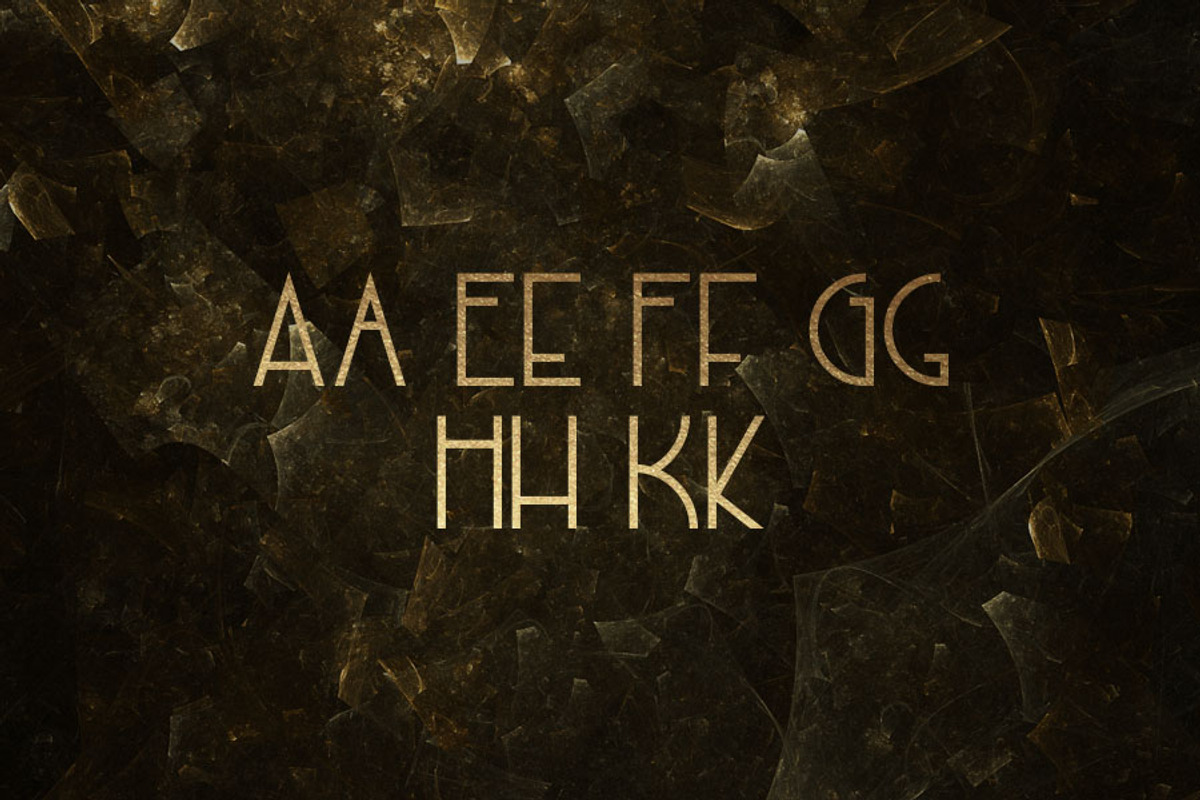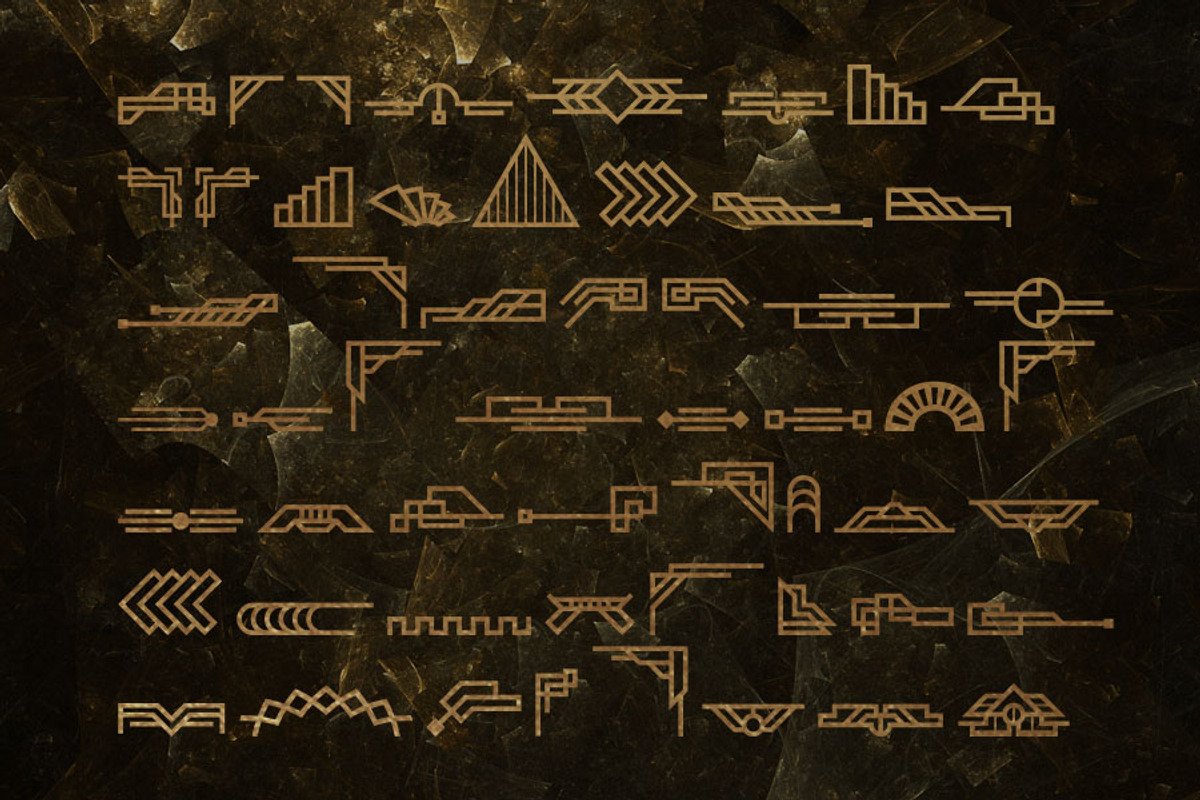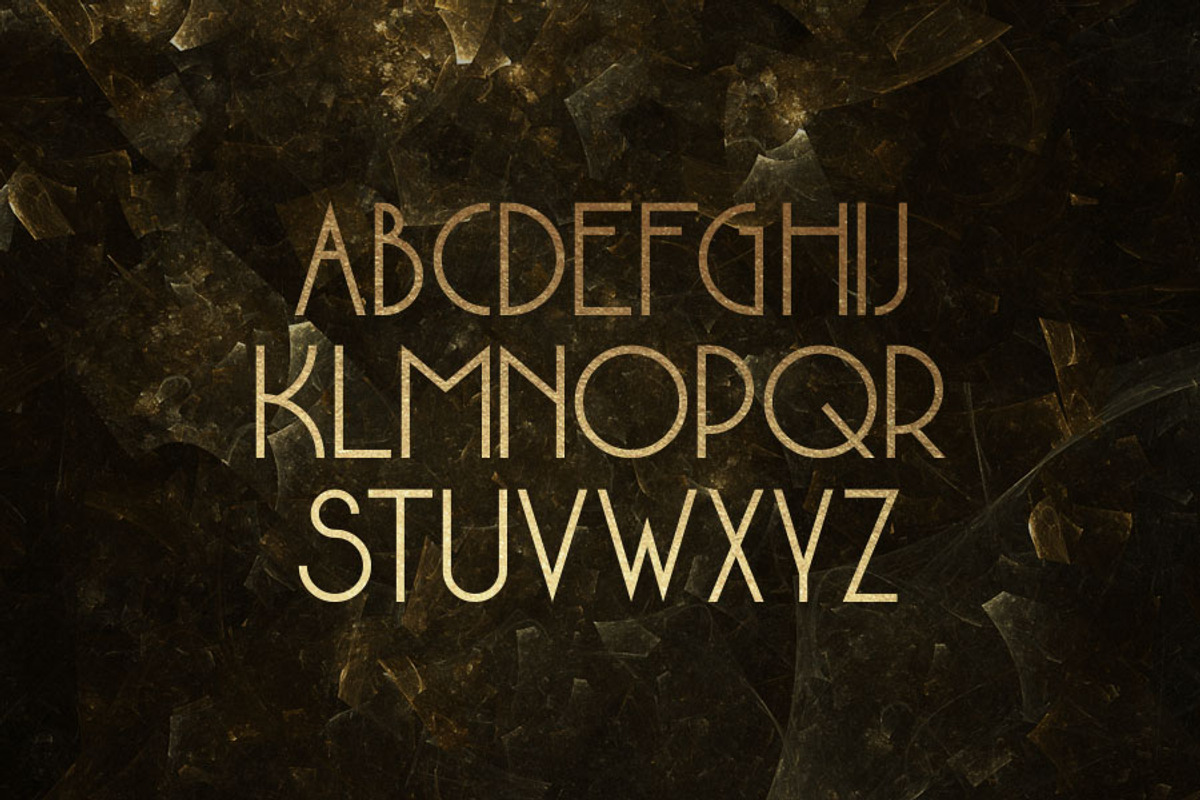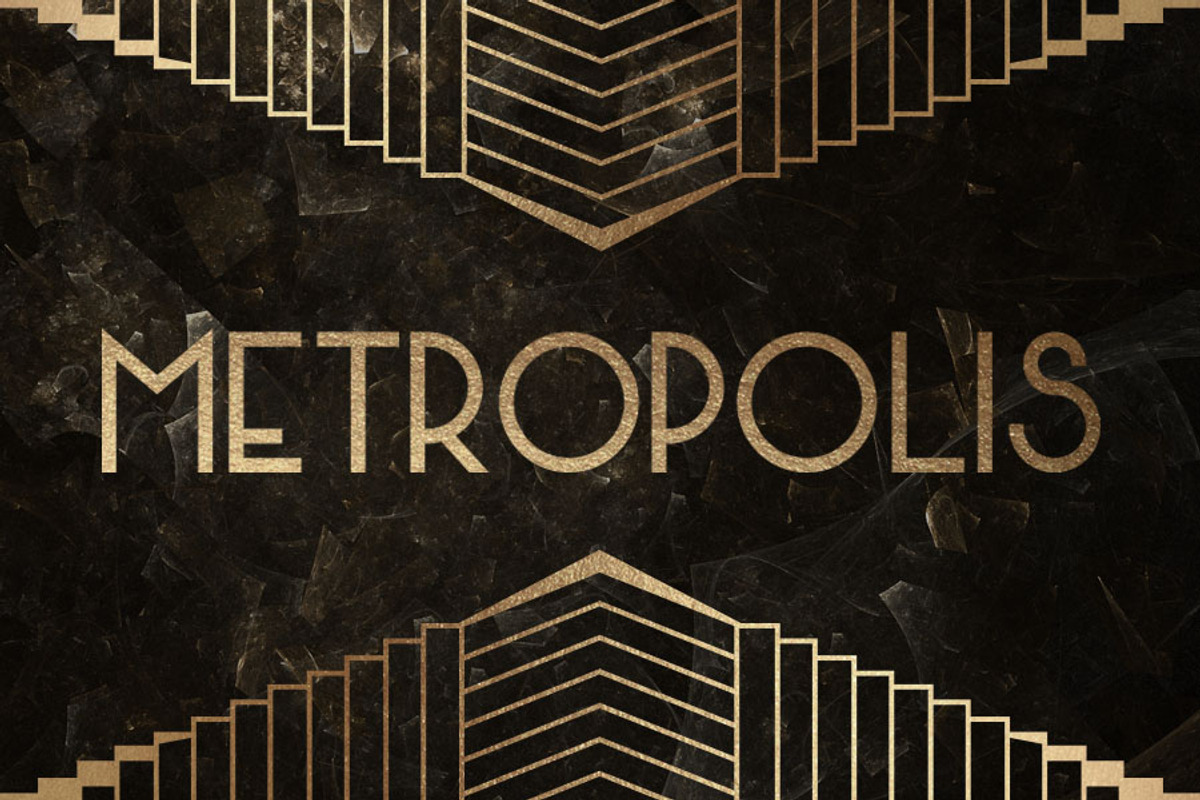
Metropolis Typeface
Metropolis Typeface by Tugcu Design Co. is a font selected for branding, posters, packaging, typography.
- It also includes 50+ art deco themed ornaments and 3 gold textures.
- Toggle caps lock to use alternate characters.
Why Metropolis Typeface is worth a look
Metropolis Typeface by Tugcu Design Co. fits naturally into Branding, posters, packaging, typography.